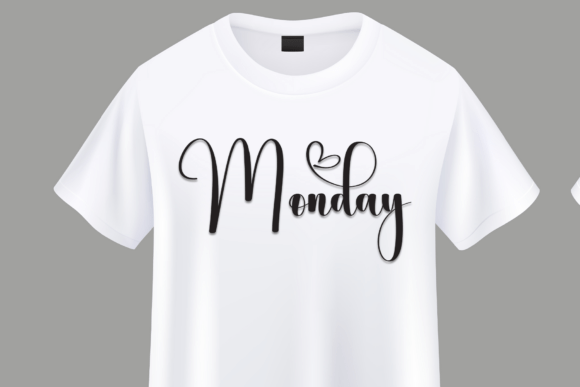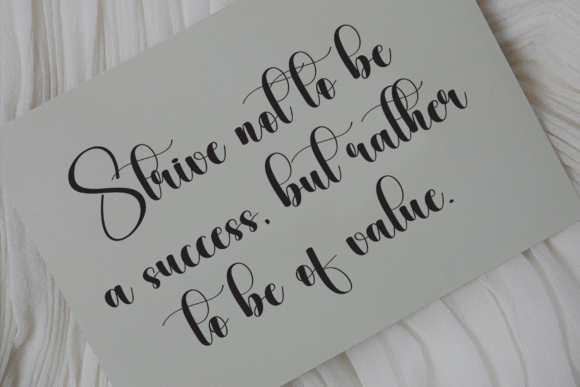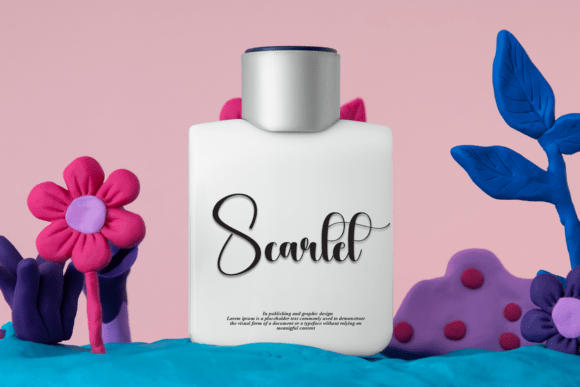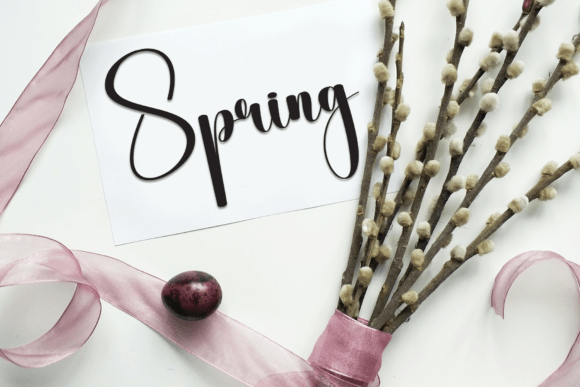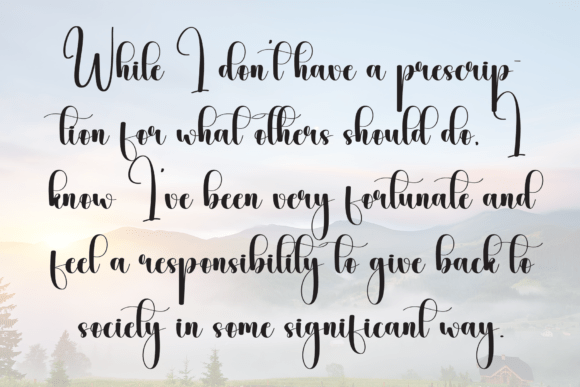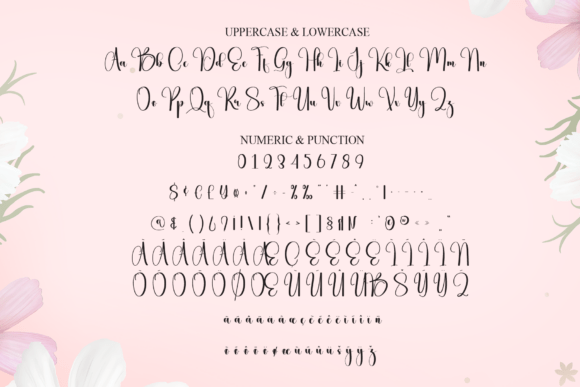
Meet the Font that Brings Joy to Your Designs
Have you ever found yourself sitting at your desk, staring at a blank page, and suddenly, a burst of creativity strikes? The ideas start flowing, and you can’t wait to bring your vision to life. This is exactly what happens when designers discover the Barbie Font – a charming handwritten display font that injects a sense of fun and playfulness into any project.
As a versatile and endearing typeface, the Barbie Font is perfect for designers seeking to add a light-hearted touch to their creations. Whether it’s a wedding invitation, a heartfelt card, or a digital art piece, this font effortlessly transforms your words into enchanting expressions of joy. Its sweet and simple design makes it an ideal choice for designers who crave a playful stroke of creativity in their work.
Barbie Font Key Features
- Font Family: The Barbie Font is a custom-designed font, making it unique and exclusive to the Barbie brand.
- Character Set: The font includes a wide range of characters, including uppercase and lowercase letters, numbers, and special symbols.
- Unique Characteristics: The Barbie Font features a distinctive, cursive style with a playful and feminine touch, making it perfect for branding and design projects related to the Barbie brand.
Designer Review: Barbie Font
The Barbie Font is a fun and playful script font that’s sure to bring a touch of whimsy to your designs. ✨ One of the things that works well is its elegant and refined aesthetic, perfect for creating a sense of luxury and sophistication. ✨ The font is also highly versatile, suitable for a wide range of applications, from fashion and beauty to entertainment and lifestyle. ✨ Additionally, the font’s large x-height makes it easy to read, even at small font sizes.
However, there are a few limitations to consider. ⚠️ For one, the font’s script style can make it difficult to read in certain contexts, such as in body copy or for users with vision impairments. ⚠️ Additionally, the font’s ornate details can be overwhelming in certain designs, making it hard to achieve a clean and minimalist look. ⚠️ Finally, the font’s compatibility with certain operating systems and devices may be limited, which could impact its usability.
Overall, I think the Barbie Font is a great choice for designers looking to add a touch of glamour and sophistication to their work. However, it’s essential to use it thoughtfully and in the right context to avoid overwhelming the design.
Design Considerations:
- Use the font for headlines and titles to add a touch of luxury and sophistication.
- Pair the font with a clean and simple sans-serif font for body copy to avoid overwhelming the design.
The “Barbie Font” is a playful and whimsical font that is perfect for:
- Designing children’s products or packaging.
- Creating social media graphics or ads.
- Adding a touch of femininity to fashion or beauty designs.
- Using as a decorative element in logos or branding materials.
For the best results, use the “Barbie Font” in conjunction with bright and pastel colors to create